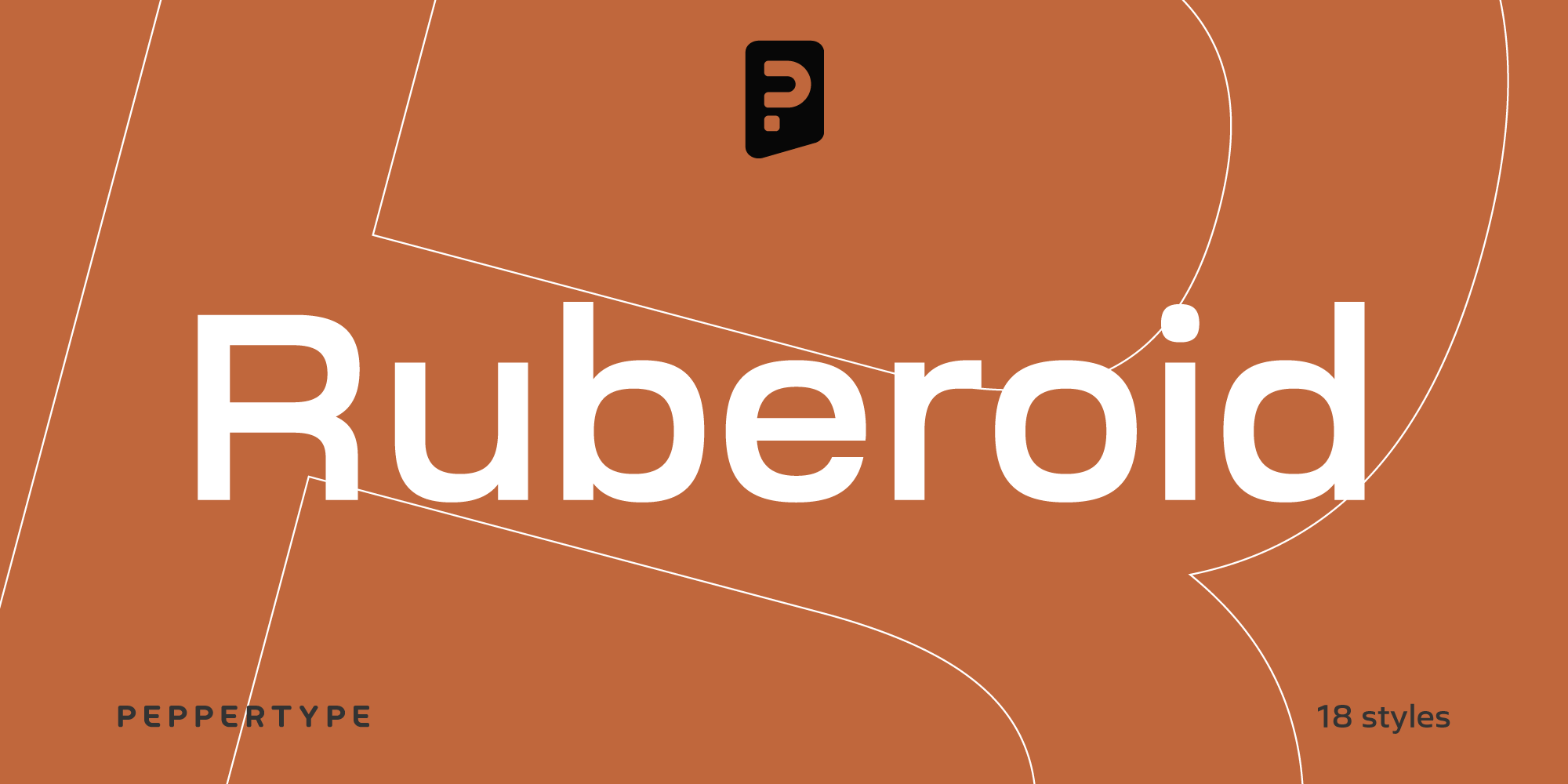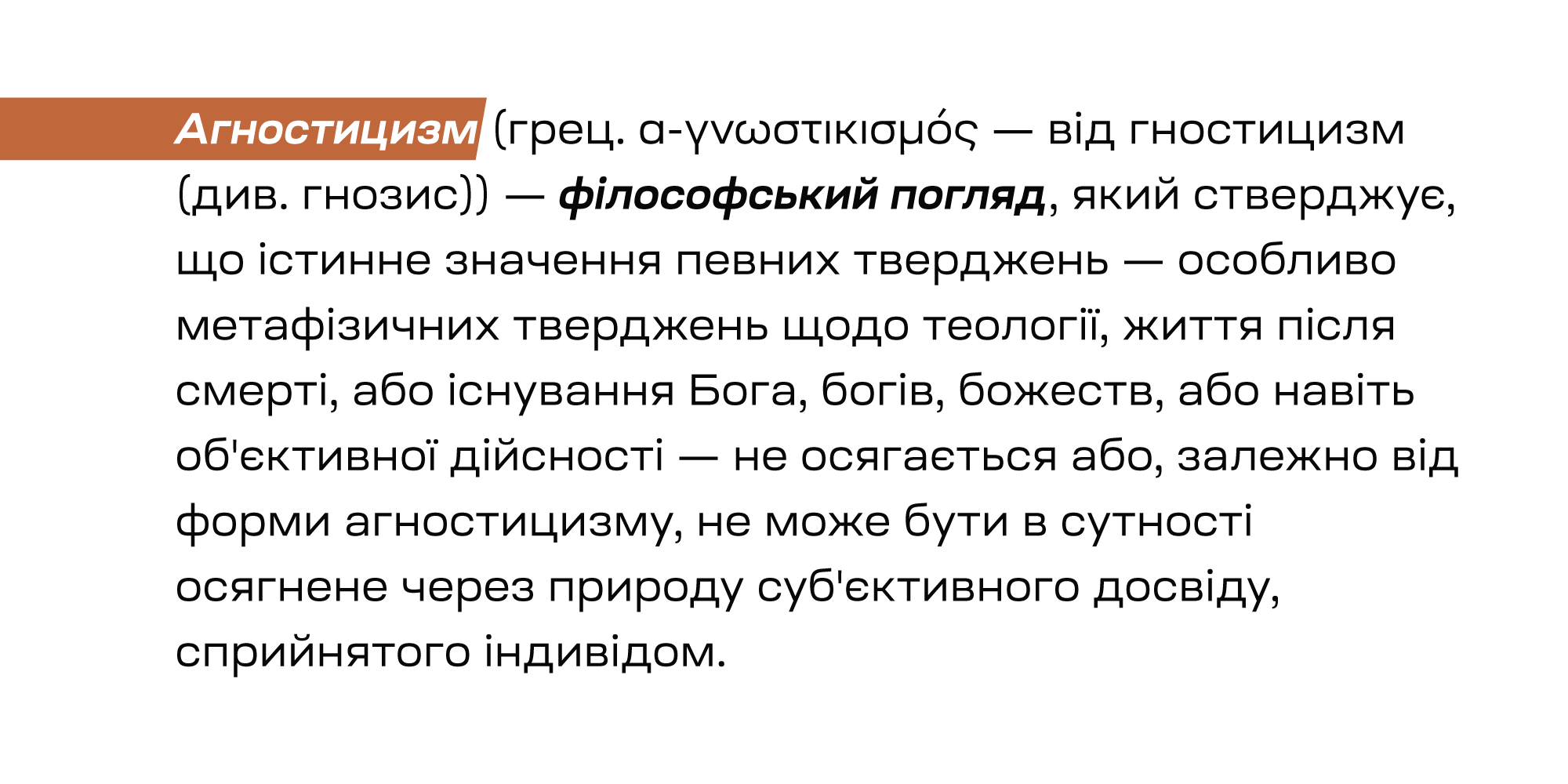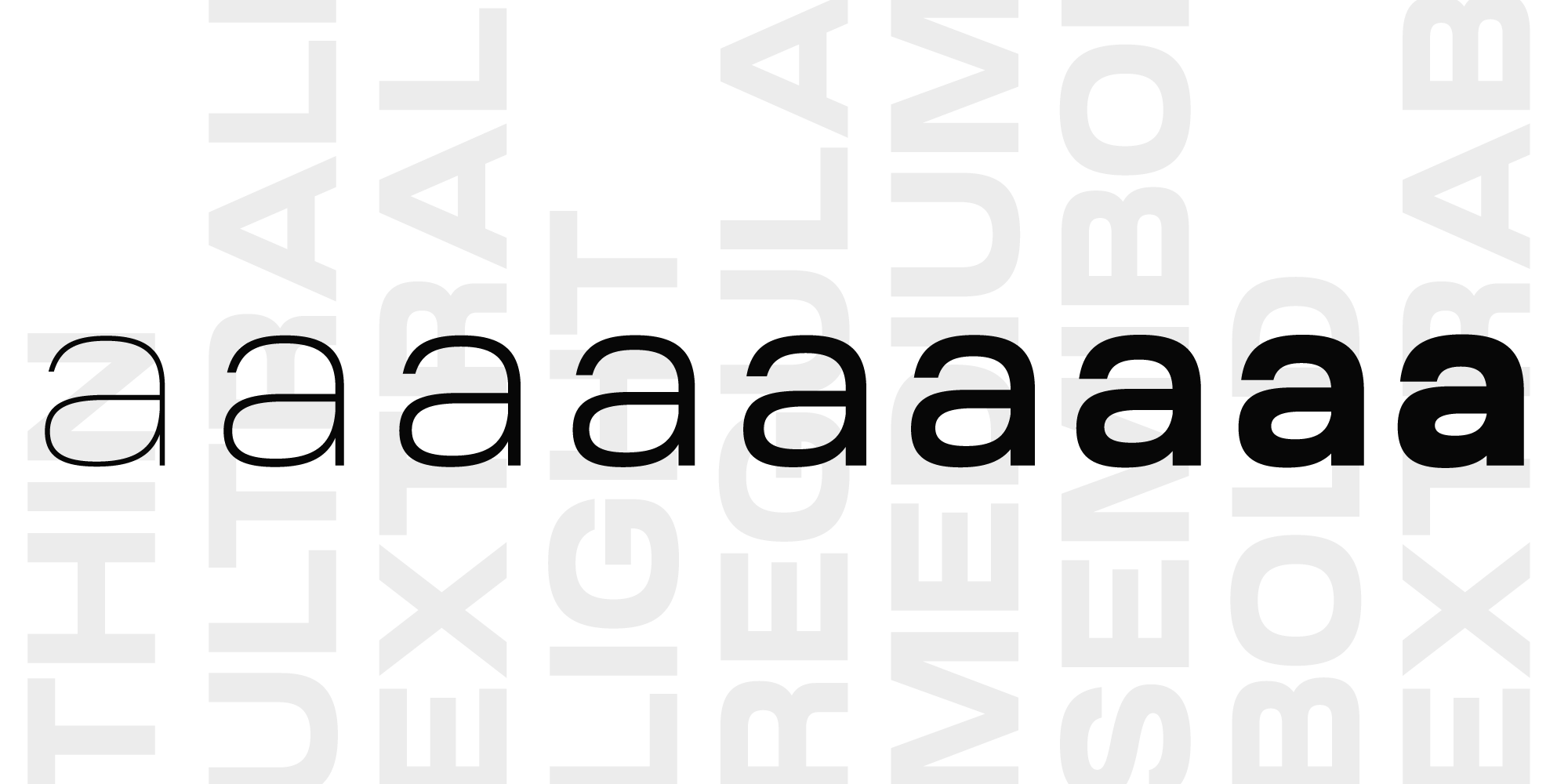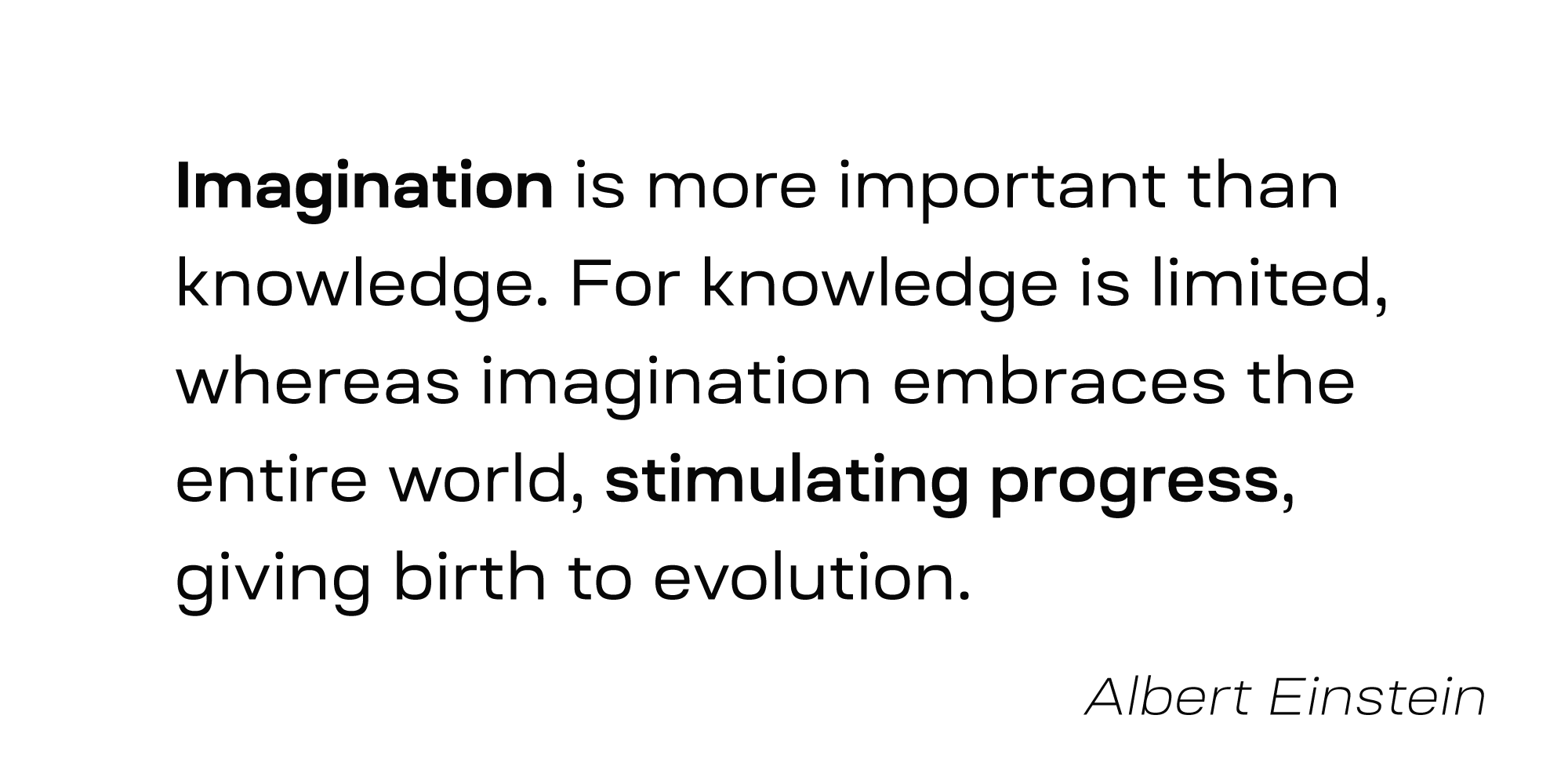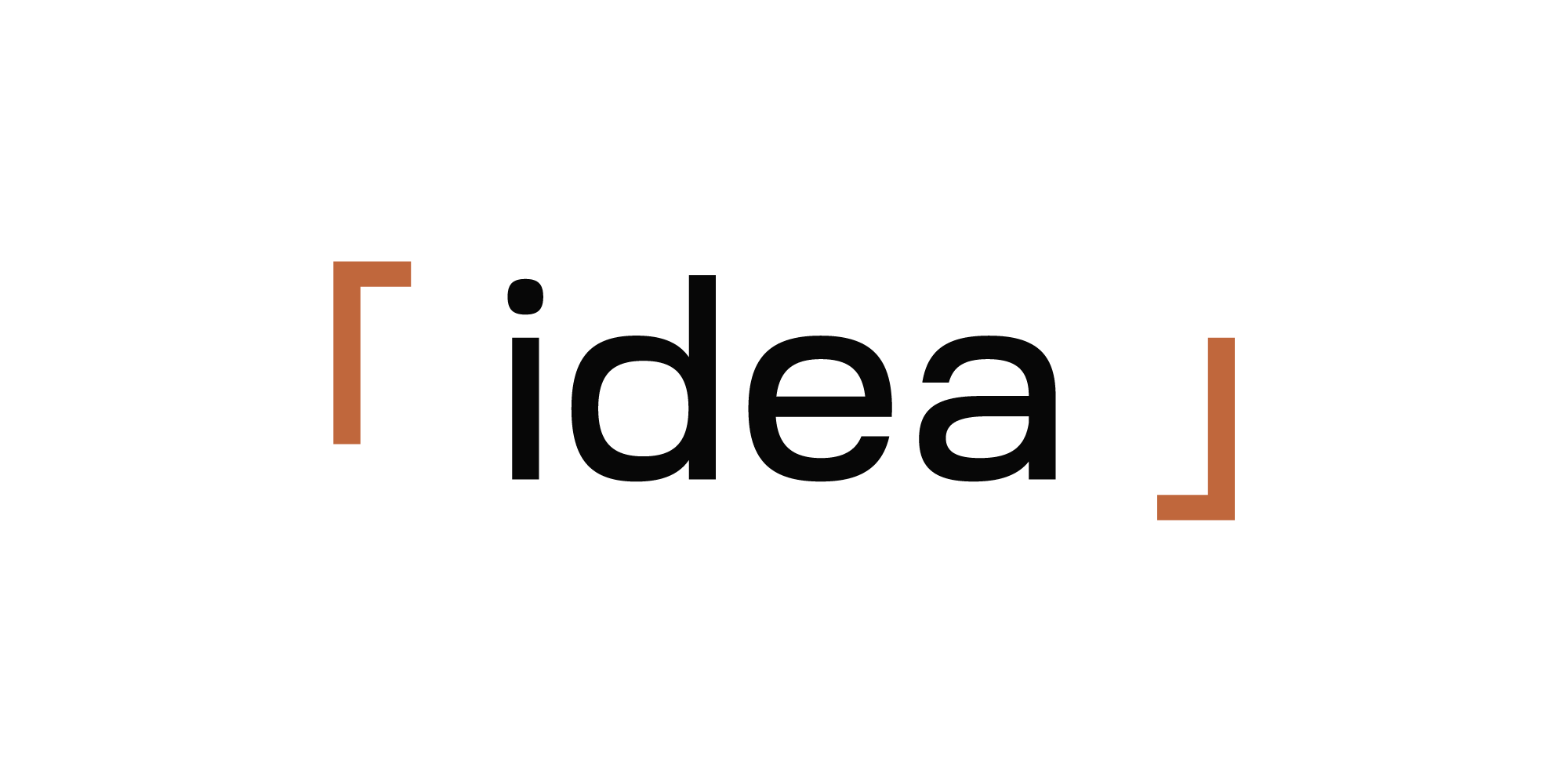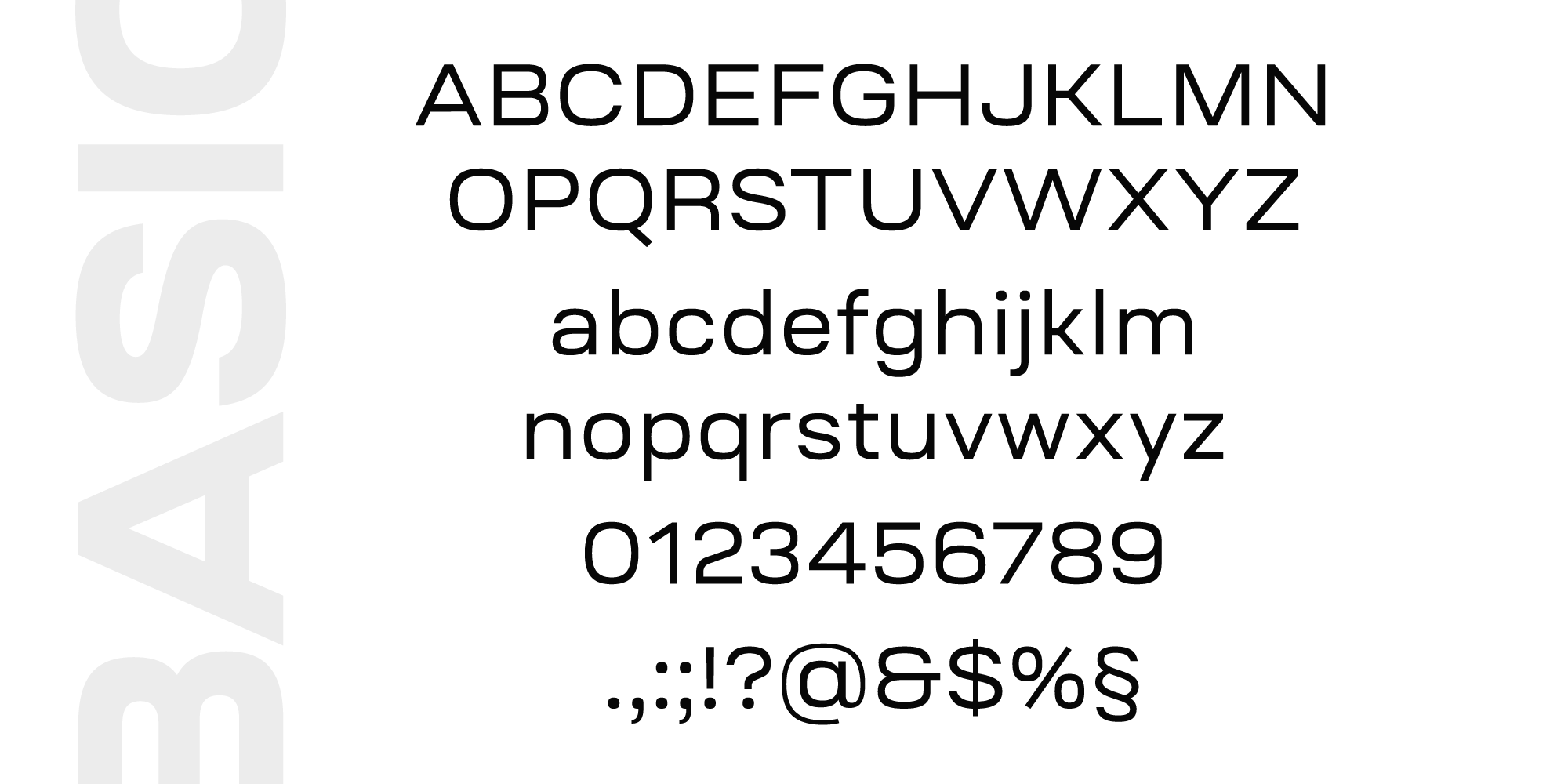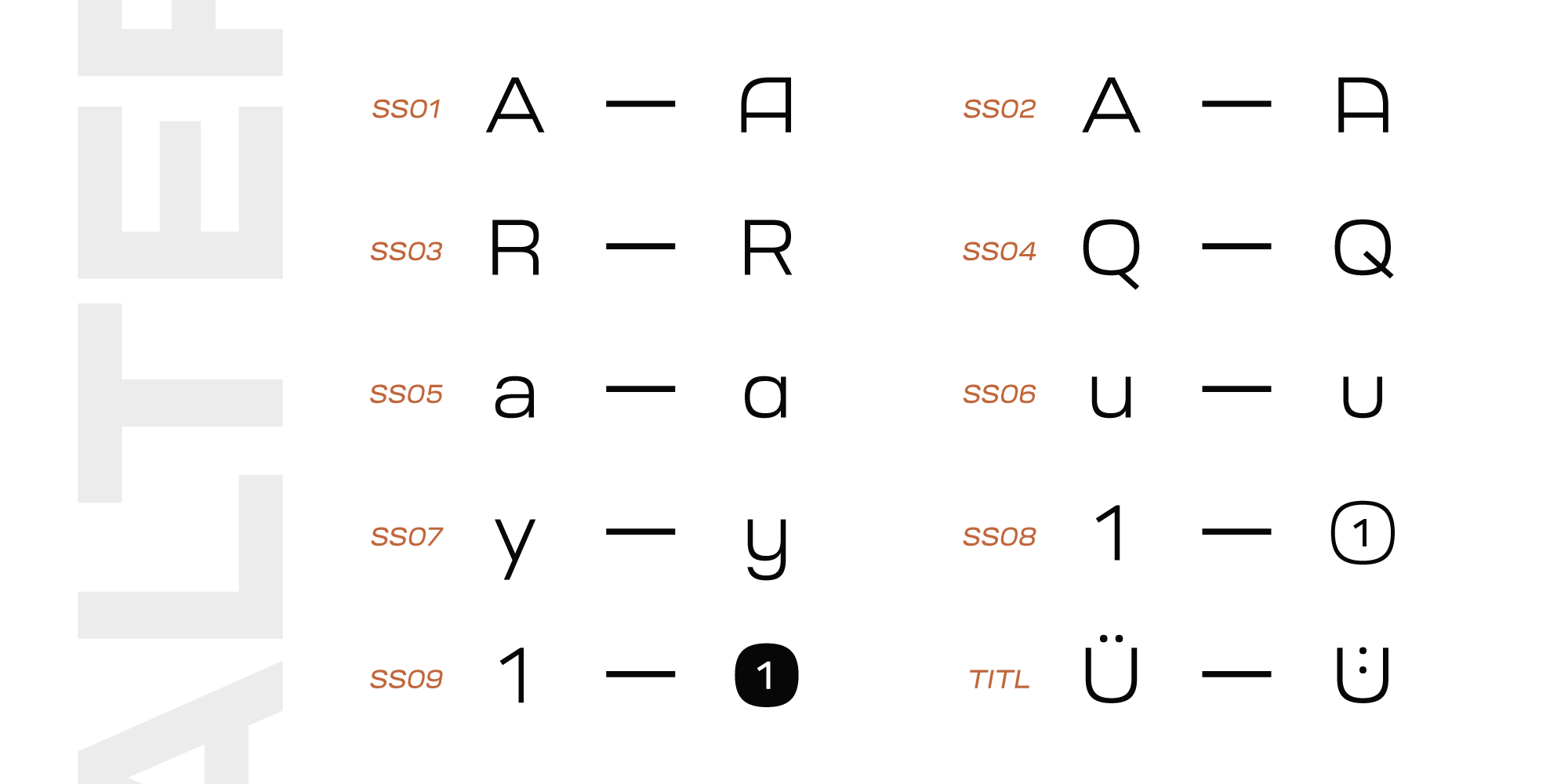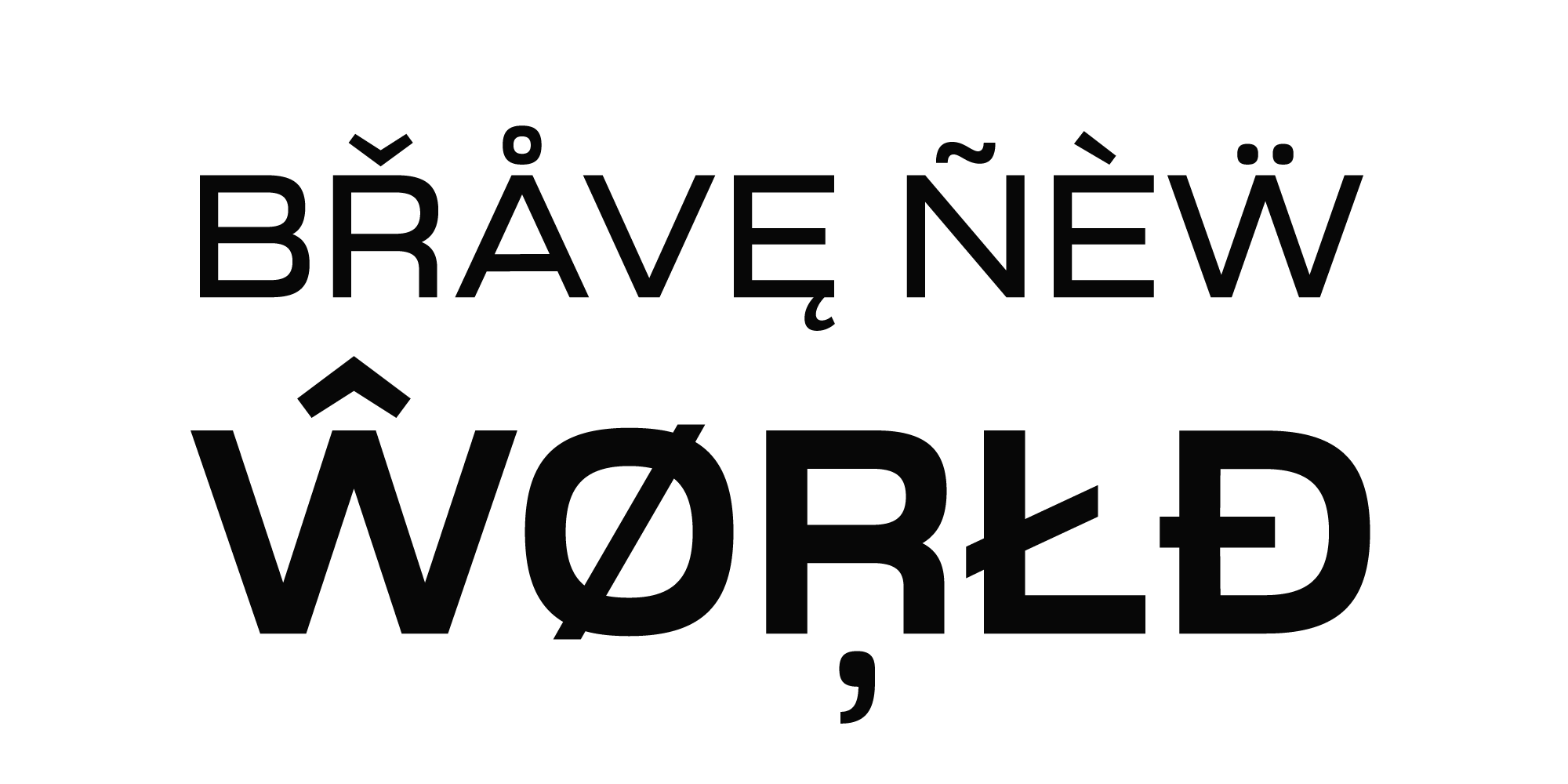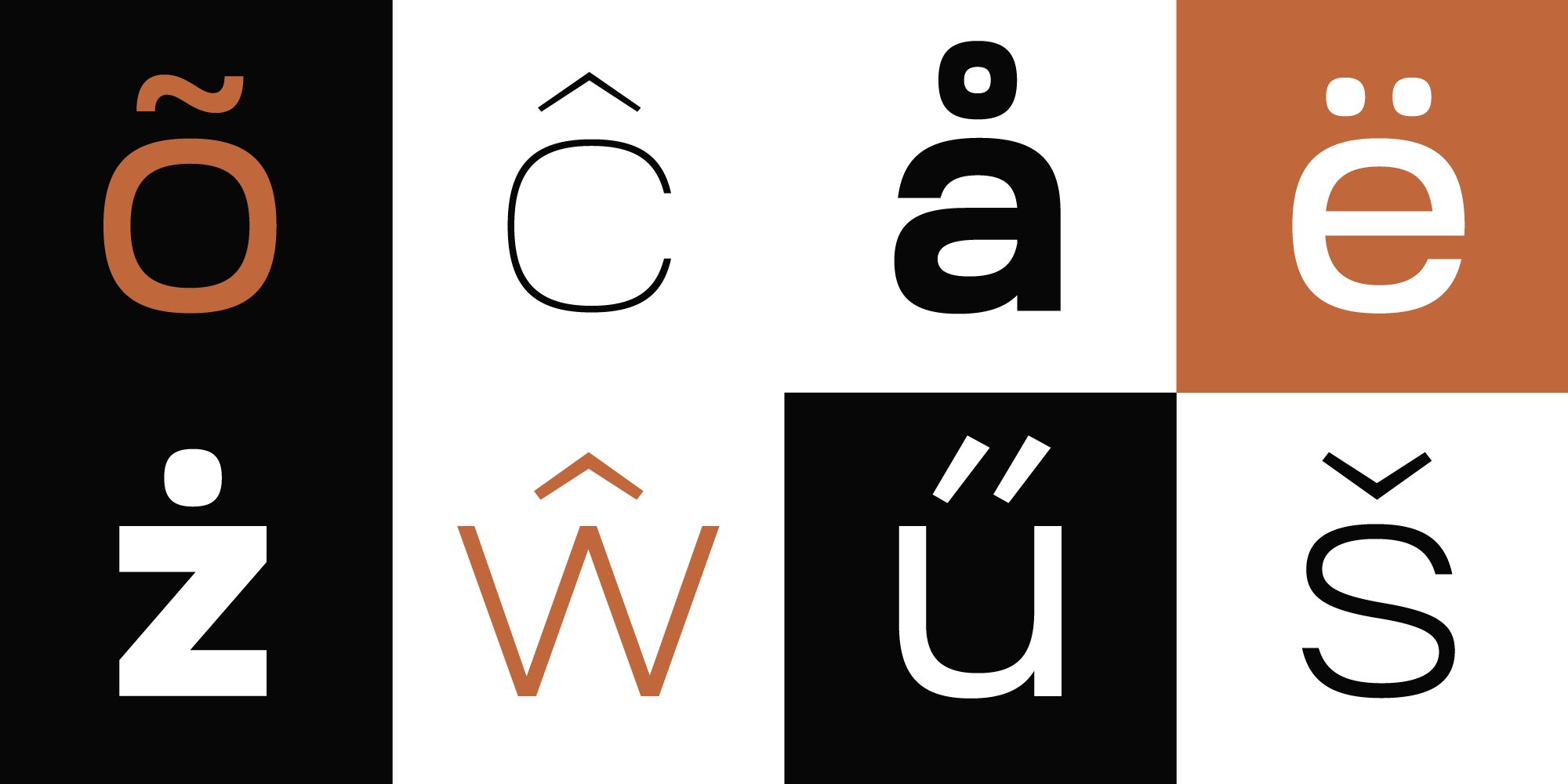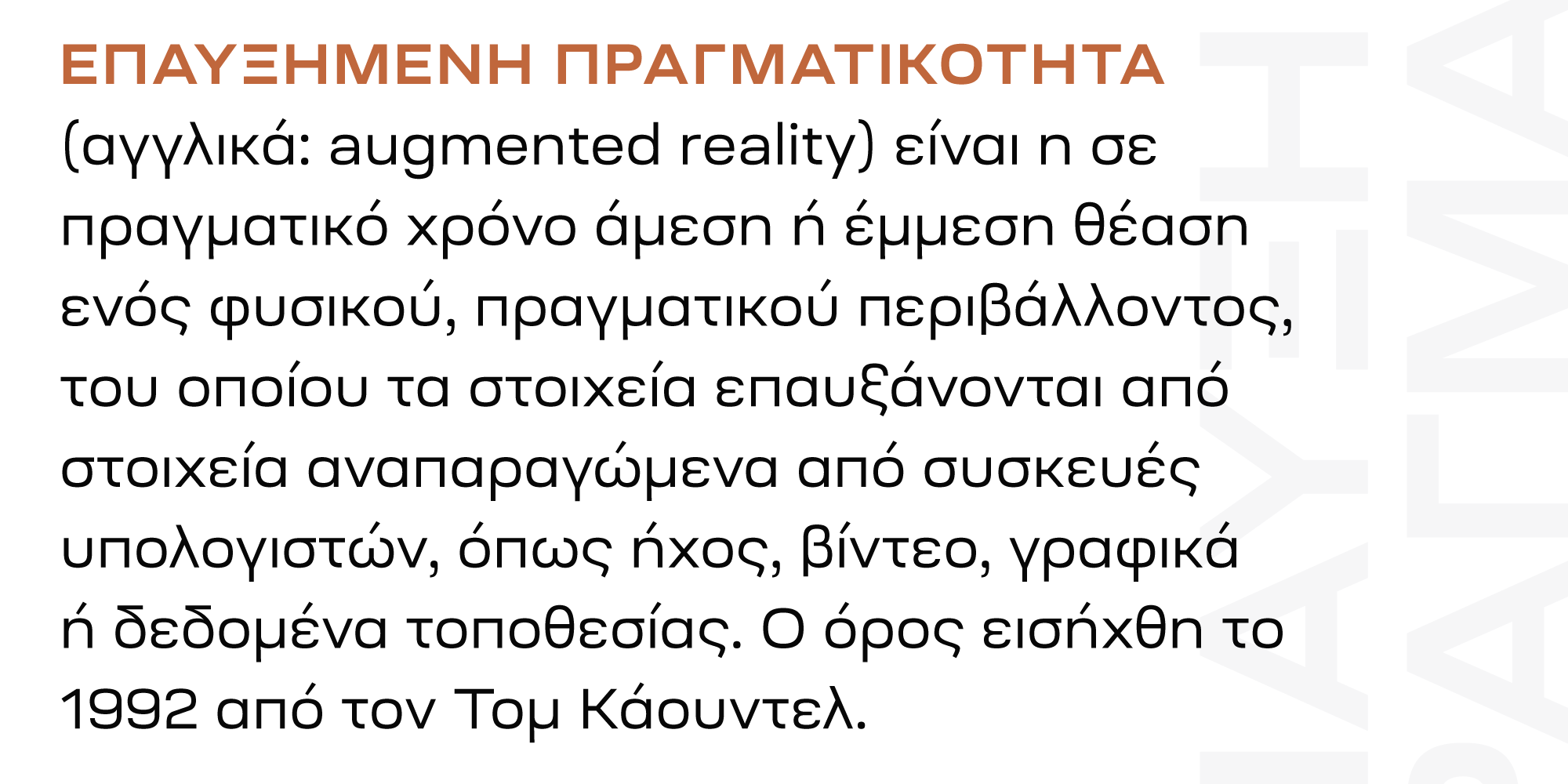
Ruberoid
Ruberoid is a squarish geometric sans-serif family reminiscent of Italian designs of 1950s and 1960s, but featuring considerably rounder shapes to give it a more contemporary feel.
The typeface comes in 9 weights with companion oblique styles and contains support for Latin, Greek, and Cyrillic scripts.
Designed by Oleh Lishchuk